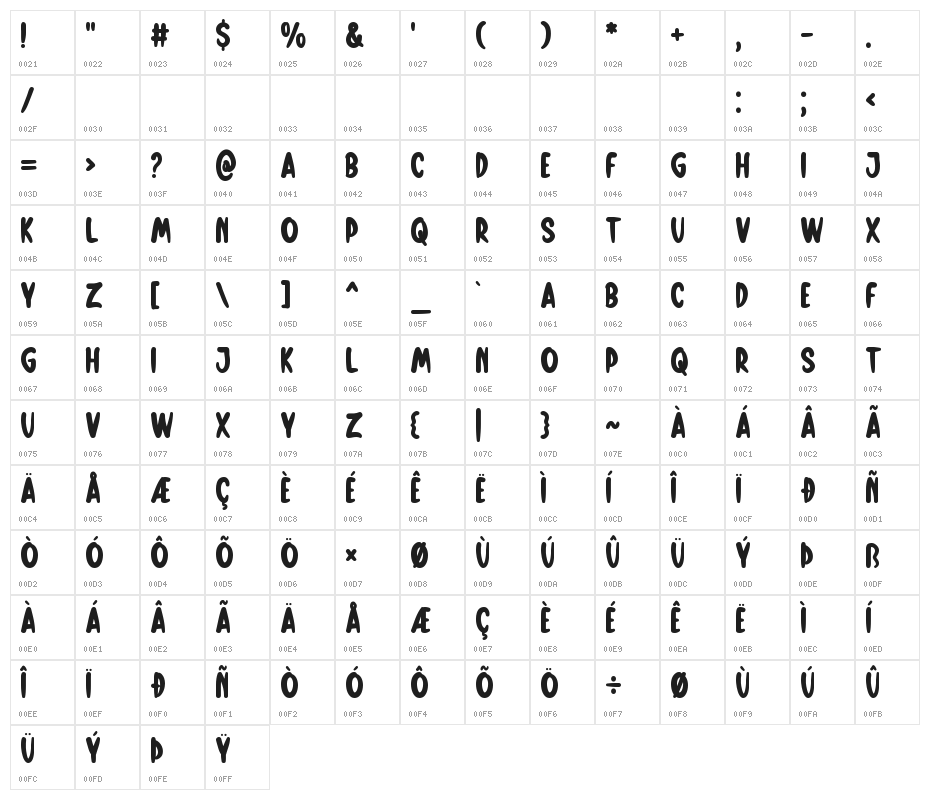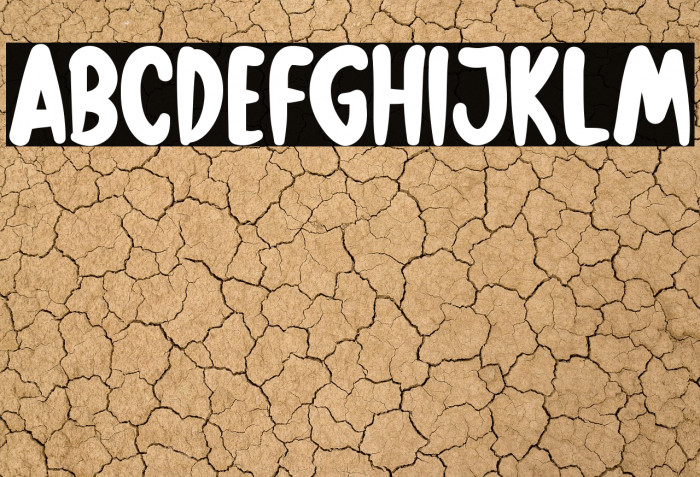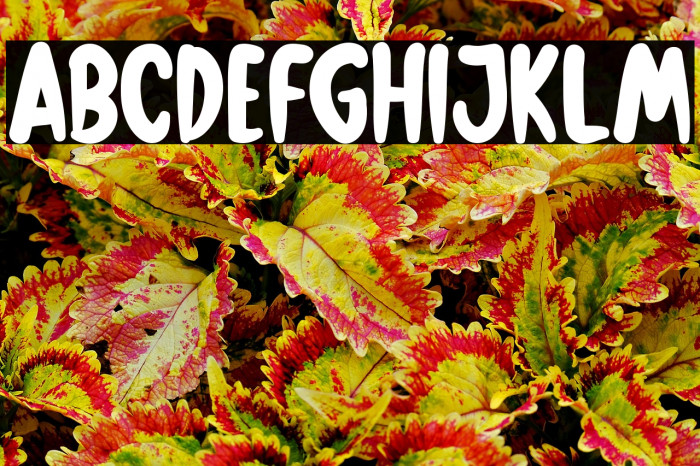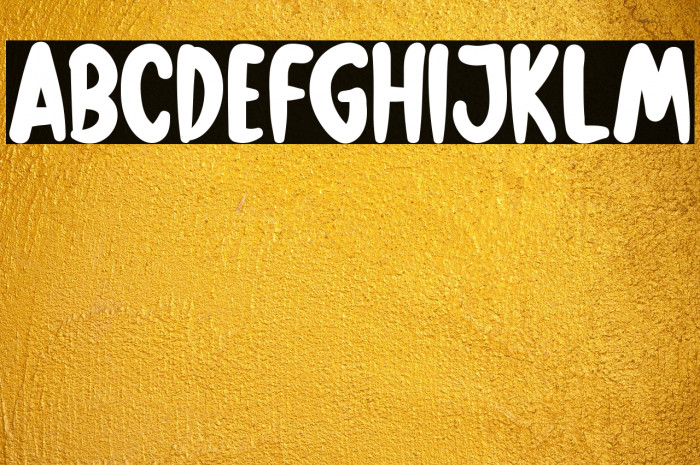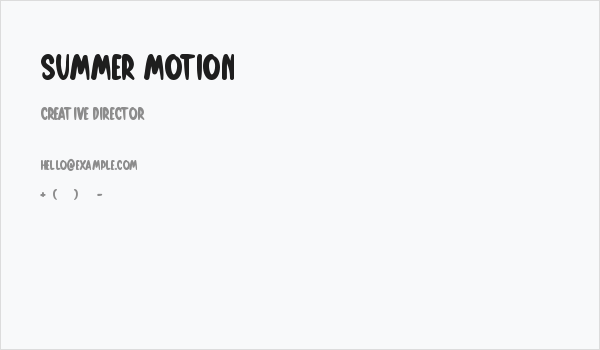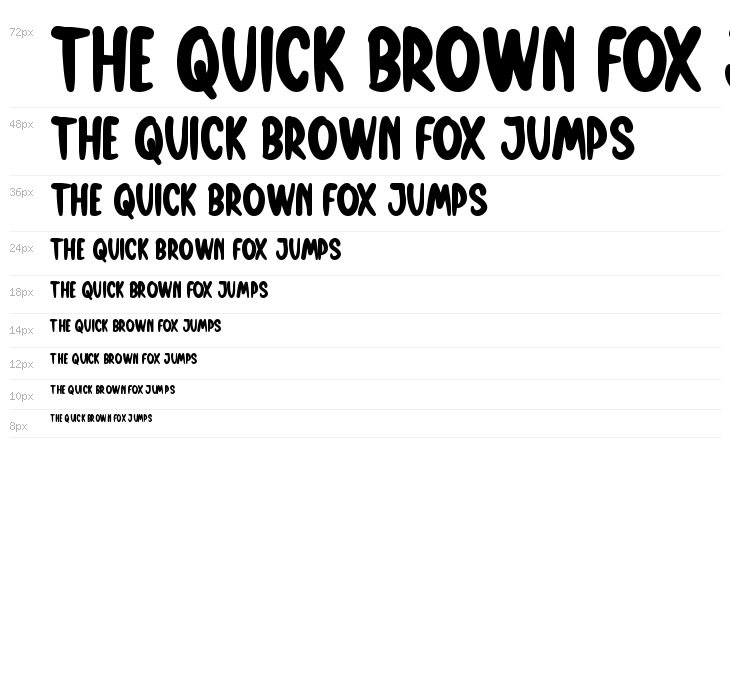
Summer Motion Font
This playful and bold font features rounded, thick strokes that convey a sense of fun and energy. The characters are slightly irregular, giving it a hand-drawn appearance that adds a personal touch. The uppercase letters are prominent and well-defined, while the lowercase letters maintain a consistent style with a slightly whimsical flair. The numbers and special characters are crafted to match the overall aesthetic, ensuring a cohesive look across all text. This font is ideal for projects that require a lively and engaging typeface.
| Overall Style | Playful |
| Proposed Projects | Perfect for children's books, playful branding, event posters, and social media graphics. |